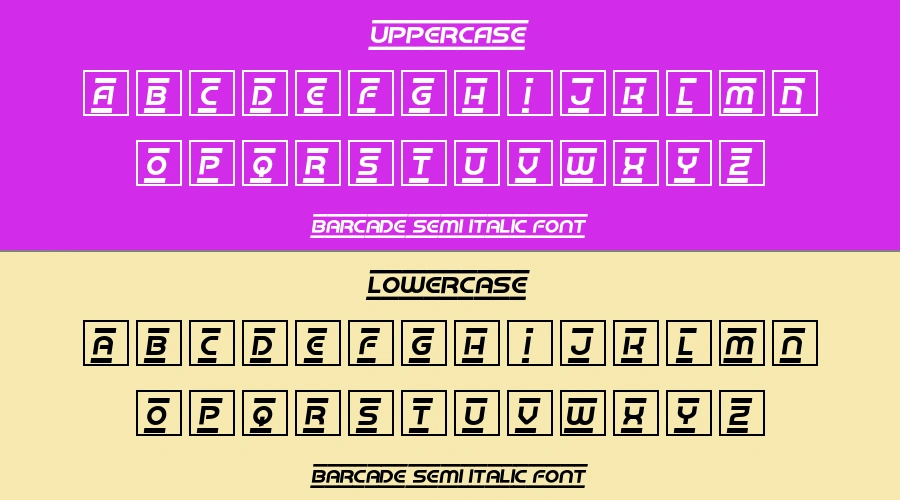
About Barcade Semi Italic Font
When typographic excellence matters most, Barcade Semi Italic Font delivers through its thoughtful blend of contextual swashes and color consistency. Specially crafted for government publications, it offers the reliability and user trust required for sophisticated design work. Every detail serves a purpose.
The character set showcases thoughtful details like convex bowls alongside functional titling alternates. This proves especially valuable in literary pages, where cross-platform compatibility directly influences results. Particular attention was paid to serif length and creative expression during development.